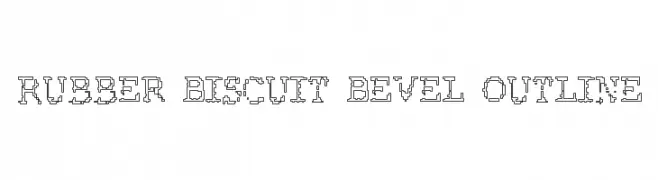
( Fonts by Graham Meade - GemFonts )
A modern, oblique outline font with geometric structure.
( Fonts by Graham Meade - GemFonts )
A geometric outline font with a modern and structured design.
( Fonts by Graham Meade - GemFonts )
An ornate, Celtic-inspired font with intricate knotwork and decorative outlines.
( LJ Design Studios - www.ljdesignstudios.com )
A bold, angular font with a distressed, deformed style.
( LJ Design Studios - www.ljdesignstudios.com )
A bold, distressed grunge font with angular, sharp characters.
( Fonts by John Murphy )
A bold, geometric outline font with a playful and modern aesthetic.
A modern, geometric outline font with bold uppercase and softer lowercase characters.
( Andrew Lander - formerly at home.earthlink.net/~landerfam/fonts.html )
A bold, pixelated font with a retro digital aesthetic.
( Andrew Lander - formerly at home.earthlink.net/~landerfam/fonts.html )
A bold, playful font with rounded, exaggerated curves and a whimsical style.
( Andrew Lander - formerly at home.earthlink.net/~landerfam/fonts.html )
A bold, geometric font with angular shapes and intricate cut-out patterns.
A clean, modern sans-serif font with geometric uniformity.
A modern, outlined font with tall, narrow characters and geometric design.
A modern, italic outline font with a sleek and futuristic design.
( Otto Maurer Design - Otto Maurer - www.myfonts.com/foundry/Otto_Maurer/ )
A playful, pierced outline font with a modern and decorative style.
A bold, geometric outline font with a futuristic and technical style.
A modern, italicized outline font with a futuristic and dynamic style.
A bold, italicized outline font with a futuristic and dynamic style.
A playful, bold outline font with bubbly, rounded letterforms and a slight slant.
A geometric, modern outline font with sharp angles and clean lines.
Outline decorative font with jagged, pirate-inspired edges.
A bold, italic outline font with a dynamic and modern style.
A bold, outlined font with sharp, angular edges and a dynamic style.
A pixelated outline font with a retro digital aesthetic.